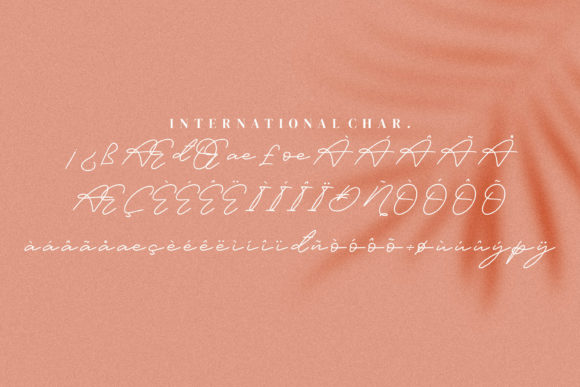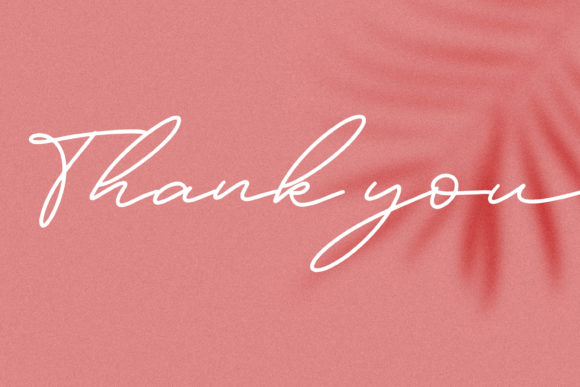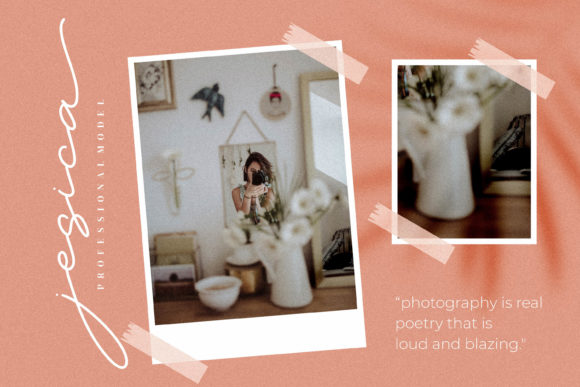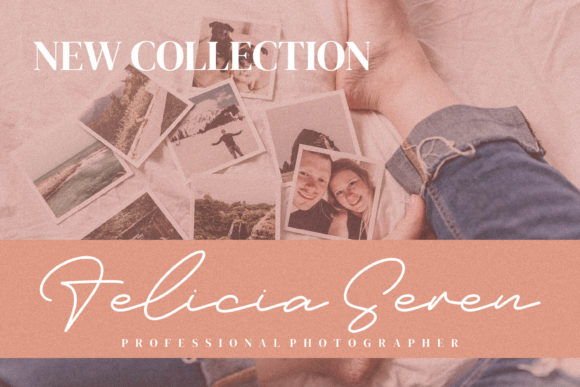
About Felisia Font
Felisia is a thin lettered and graceful script font. Fall for its ravishing style and use it to create gorgeous designs. Felisia is PUA encoded which means you can access all glyphs and swashes with ease!